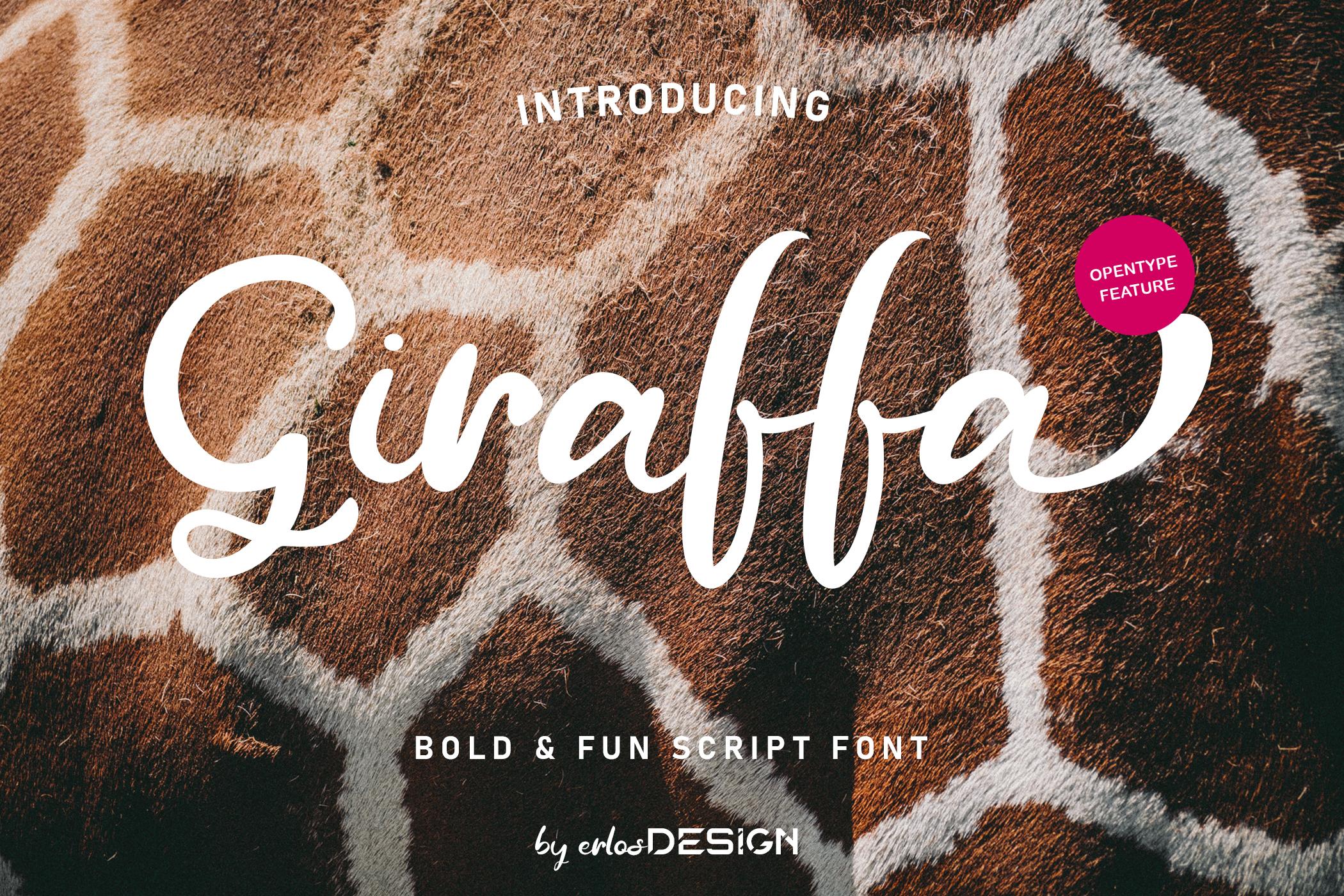
Giraffa Font Description
Giraffa is a flowing, bold, and beautiful script font. It features a varying baseline, smooth lines, gorgeous glyphs, and stunning alternates. Fall in love with its incredibly versatile style and use it to create gorgeous designs!